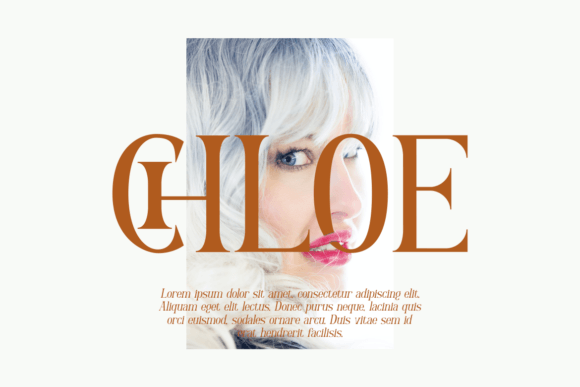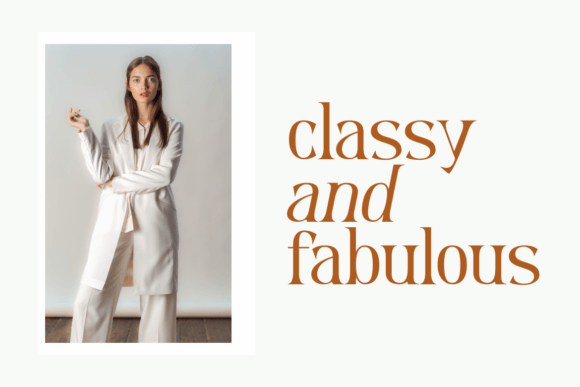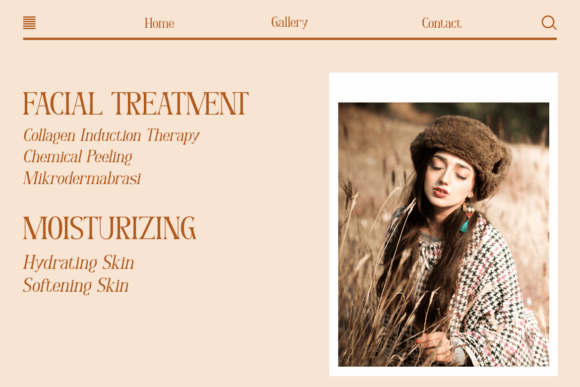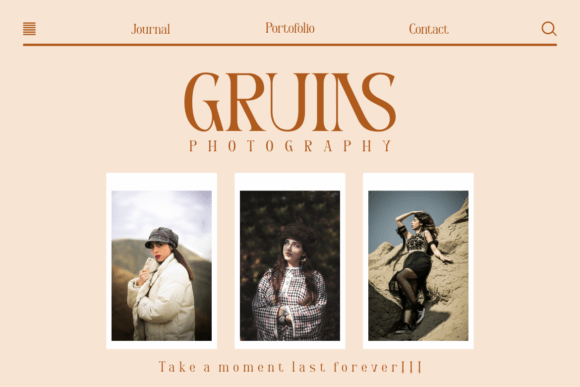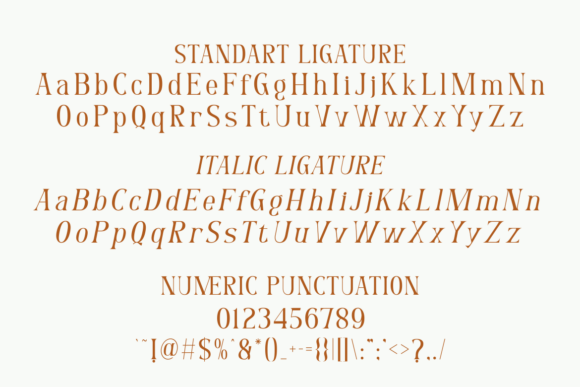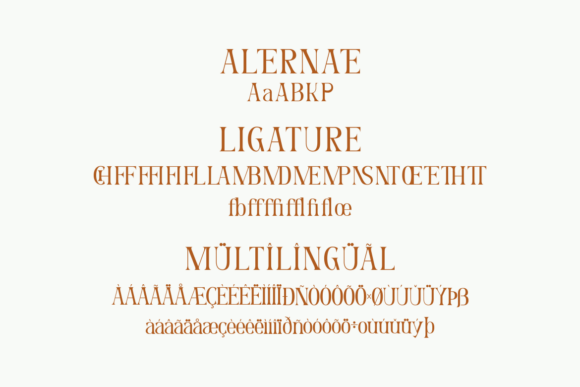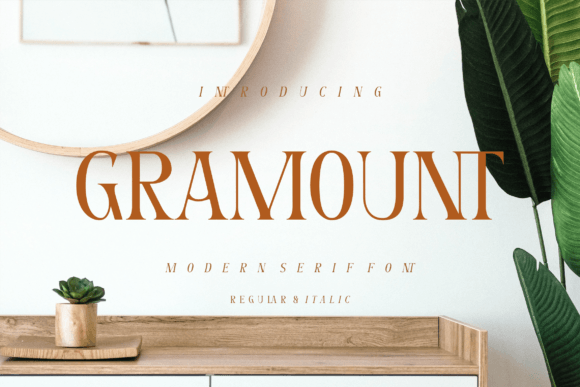
Introducing Gramounth Font: Elevate Your Designs with Modern Elegance
In the world of typography, a font can make or break a design. For creatives, designers, and crafters, finding the perfect typeface that combines style, versatility, and uniqueness is a constant quest. This is where Gramounth Font comes into play – a modern and classy serif font that is poised to revolutionize your design projects with its distinctive charm.
The Essence of Gramounth Font
Gramounth is not just another serif font; it’s a meticulously crafted typeface designed to meet the diverse needs of modern designers. Its bold and sharp style is engineered to make a statement, adding a sleek and stylish edge to any project. Whether you’re working on titles, typography, posters, magazines, brochures, packaging, websites, or more, Gramounth Font is your go-to solution for making your creations stand out.
Key Features of Gramounth Font
- Modern and Classy Design: Gramounth boasts a contemporary look with a classic touch, making it perfect for designs that require a bit of sophistication and elegance.
- Versatility: From digital platforms to print media, Gramounth Font adapts seamlessly across various mediums, ensuring consistency and quality in every project.
- Unique Touch: What sets Gramounth apart is its unique design elements that add a fresh spin to the traditional serif font, making it a standout choice for designers looking for something new.
- Bold and Sharp Style: The font’s bold and sharp characteristics make it highly legible and attention-grabbing, ideal for titles and headings that need to make an impact.
Applications of Gramounth Font
The versatility of Gramounth Font makes it suitable for a wide range of applications:
- Typography and Posters: Create eye-catching posters and typographic designs that demand attention.
- Magazines and Brochures: Elevate your editorial designs with a font that exudes professionalism and style.
- Packaging: Make your product packaging stand out on the shelves with Gramounth’s distinctive look.
- Websites: Enhance your website’s aesthetic appeal with a modern font that resonates with contemporary design trends.
Why Choose Gramounth Font?
In a market flooded with countless fonts, Gramounth Font offers a unique blend of style, functionality, and creativity. Here are a few reasons why it should be your top pick:
- Time-Saving: With Gramounth, you can achieve professional-looking results without spending hours on custom typography.
- Consistency: Its versatile design ensures that your brand maintains a consistent look across different platforms.
- Creativity: The font’s unique touch provides a creative edge, allowing you to experiment with various design ideas.
Gramounth Font is more than just a typeface; it’s a design companion that can elevate your projects to new heights. Its modern elegance, combined with its bold and sharp style, makes it an indispensable tool for designers and crafters aiming to leave a lasting impression. Whether you’re a seasoned professional or a hobbyist, Gramounth Font is your key to unlocking a world of creative possibilities.